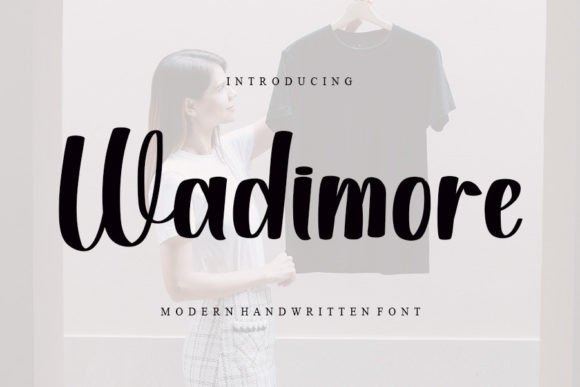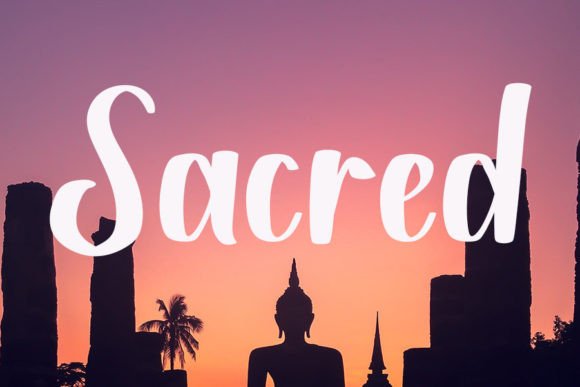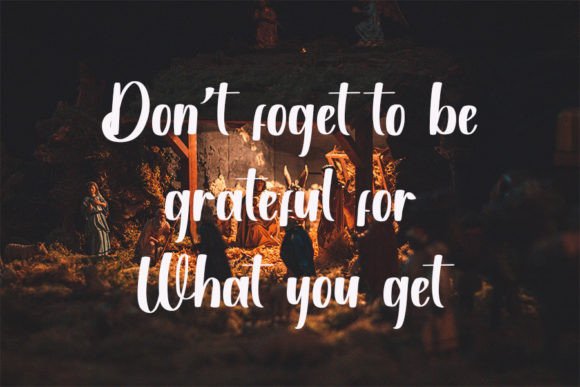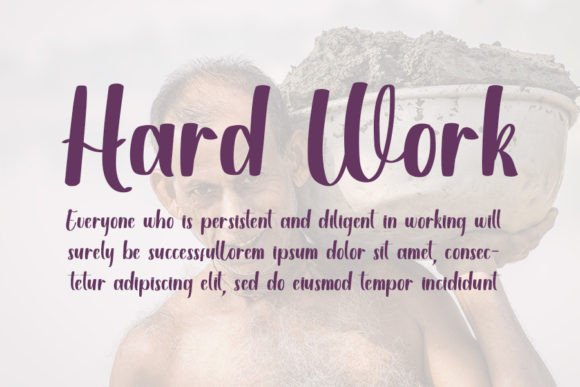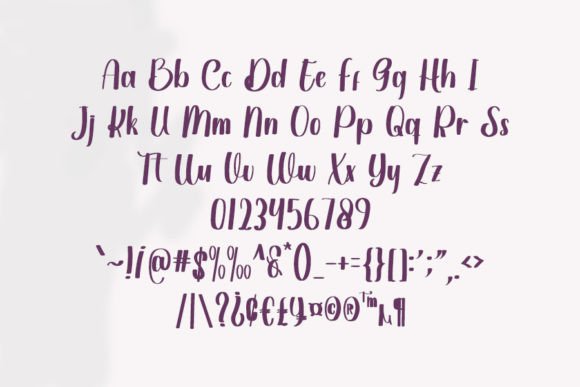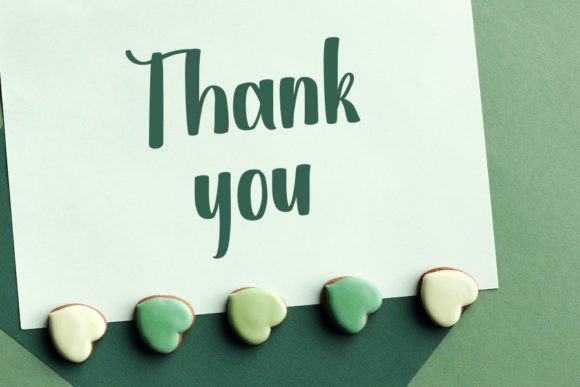
Wadimore Font
About Wadimore Font
“Wadimore” is a stylish handwritten font that exudes a modern vibe while maintaining a clean and polished form. Inspired by classic calligraphy, it strikes a balance between not being too thin or too thick, making it a versatile and well-rounded font choice. “Wadimore” has been thoughtfully designed to elevate the aesthetics of your creative projects.
The font’s versatility makes it suitable for a wide range of design applications. Whether you’re working on branding, logo design, graphic design, or typography, “Wadimore” offers a modern and adaptable option.
In the realm of branding and visual identity, “Wadimore” can play a pivotal role in establishing a contemporary and distinctive image for businesses and brands. Its balanced and modern handwritten appearance lends a sense of style and uniqueness, making it an excellent choice for those seeking a memorable brand identity.
When used in printed materials such as posters, flyers, and promotional collateral, “Wadimore” adds a touch of modernity and variety. Its calligraphic influence exudes authenticity and artistic flair, making it an excellent choice for capturing attention and effectively conveying messages.
For personal projects like invitations, greeting cards, and stationery, “Wadimore” can add an extra layer of style and charm to your messages. It brings a contemporary and polished look to your words, making it suitable for various special occasions and personal expressions.
In essence, “Wadimore” is more than just a font; it’s a creative tool that introduces a cool and modern ambiance to your projects. Its adaptability and contemporary aesthetics make it a valuable asset for designers and individuals looking to infuse their work with style and beauty, enhancing the overall impact of their creative endeavors.